Wood fonts and other typeface designs play a vital role in creating stylized designs for paper prints, web designs, presentations and artworks. If you are a designer, you have to admit that technology sometimes makes us forget about the great outdoors. Often, we find ourselves stuck inside a square room with only a small window to the outside world. Sometimes, there might not be any window at all.
To help you bring the outdoor feel into your design, I have compiled a list of more than 35 wood font designs in this post for your inspiration. Whether you are designing a centerpiece or something that needs some natural characteristics, wood font designs can help in evoking trees, wood grains and everything with forest in it. I hope that their natural shapes will bring to mind campfires, hikes and all those times you spent sleeping inside a tent.
Wood Look– MORE INFO
Burris– MORE INFO
Wood Cut – MORE INFO
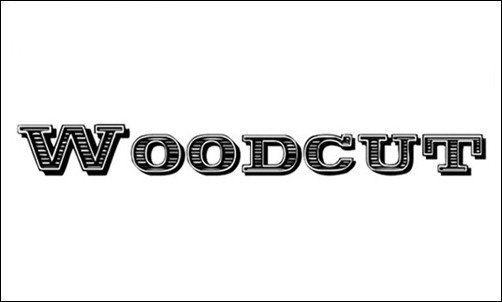
WOODENBLOKS – MORE INFO
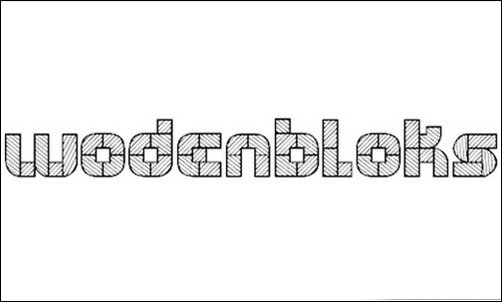
Wood Relief– MORE INFO
Lower East Side – MORE INFO
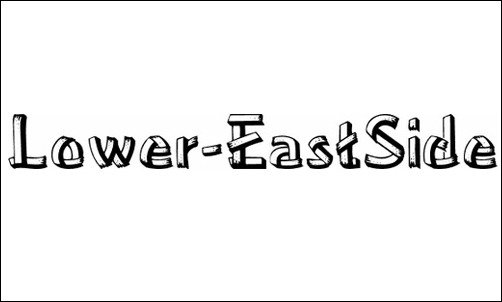
Sketch Boards– MORE INFO
Log Font –MORE INFO
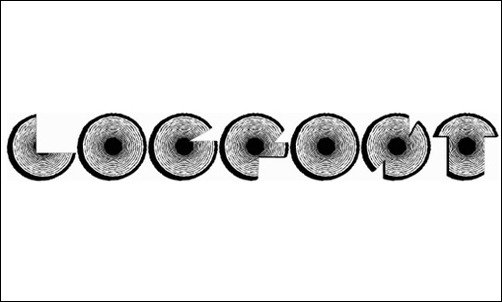
Chiseled Round– MORE INFO
Walk The Plank – MORE INFO
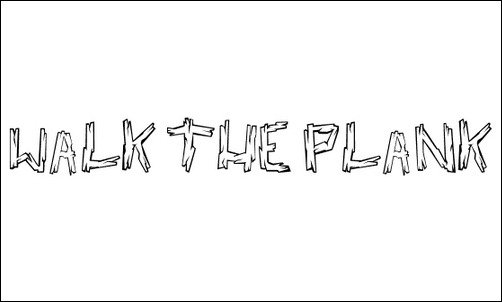
Dasriese Shadow– MORE INFO
Barrel – MORE INFO
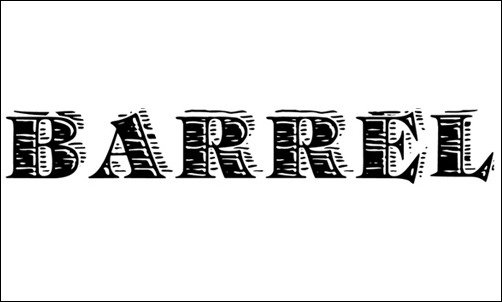
Knock Out – MORE INFO
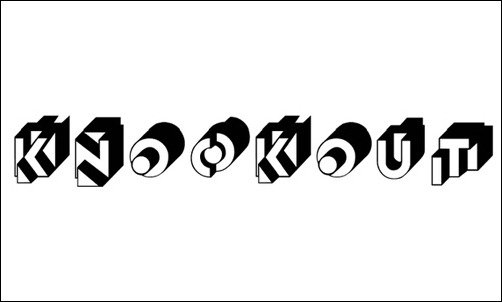
Pinewood – MORE INFO
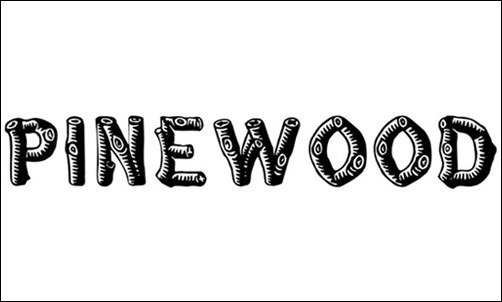
Klitsch – MORE INFO
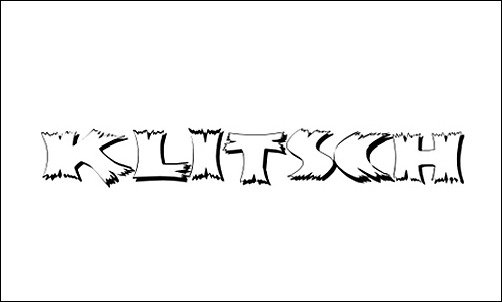
Wood Sticks– MORE INFO
Wood Shapes –MORE INFO
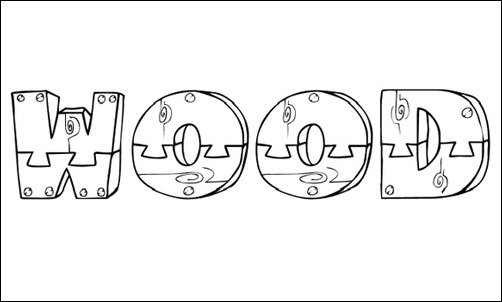
Wood– MORE INFO
Sketch Logs– MORE INFO
Wood 2 – MORE INFO
DeLorimier Regular– MORE INFO
Chiseld Round – MORE INFO
Perfect Match– MORE INFO
Bark – MORE INFO
Alpha Wood– MORE INFO
Drift Wood– MORE INFO
Logger – MORE INFO
Woodenhead– MORE INFO
Wild Wood – MORE INFO
Boards– MORE INFO
Burnstown Dam – MORE INFO
RusticBlackShadow– MORE INFO
Botanink – MORE INFO
Wood plank– MORE INFO
Ringmaster – MORE INFO
WoodWud– MORE INFO
Deep Woods Initials – MORE INFO
Camp Fire– MORE INFO
Bosque Encantado – MORE INFO